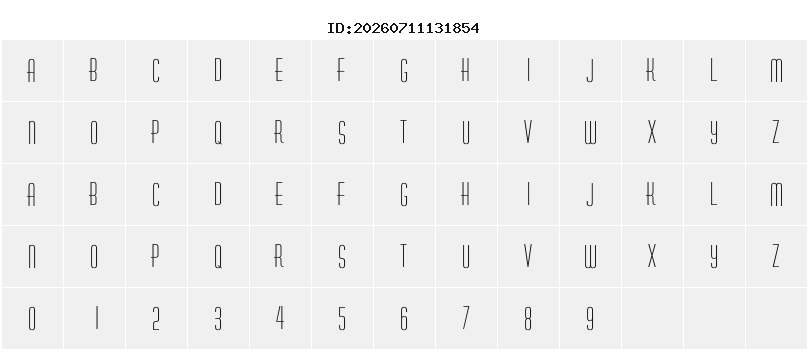
Markon Vertical Preview
• Font Name: Markon Vertical
• Full Font Name: Markon Vertical
About Markon Vertical.ttf
Markon Vertical.ttf is a modern, elegant sans-serif font designed for ultimate readability and visual harmony. Perfect for branding, headlines, web design, and print materials.